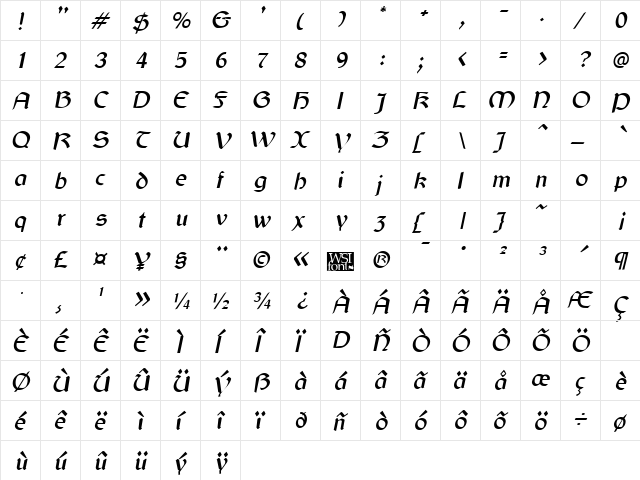
Gaelic Italic
Design Context for Gaelic Typeface
Gaelic takes a measured approach to typography — its balanced proportions and neutral character make it a reliable workhorse for both digital and print work. Its italic angle brings a sense of urgency and motion to the letterforms.
Pro Tip: Try Gaelic for annotation and caption copy alongside an upright companion — the contrast in angle creates a dynamic but ordered typographic system.